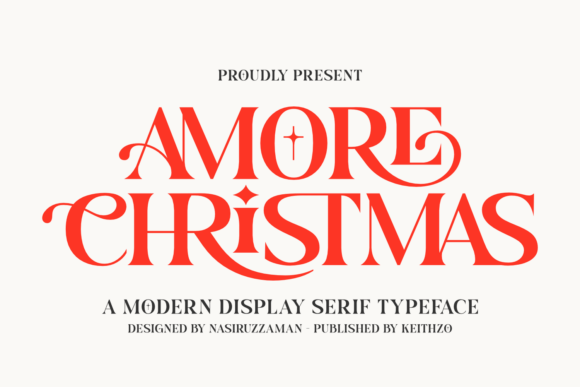
Immerse Yourself in the Festive Spirit with Amore Christmas Font
The holiday season is upon us, and with it comes the desire to create festive and captivating designs that evoke the warmth and cheer of Christmas. Introducing Amore Christmas, a bold and elegant display serif font that embodies the essence of the holiday season. With its stunning ligatures, flowing arcs, and built-in Yuletide decorations, Amore Christmas is the perfect choice for adding a touch of holiday magic to your designs.
The Essence of Holiday Cheer
Amore Christmas is more than just a font – it’s an experience. It’s a way to transport your audience to a world of festive joy, warmth, and celebration. The font’s bold and elegant design makes it perfect for creating high-impact headlines, vibrant seasonal promotions, and Christmas-themed menus that resonate with your audience. Whether you’re designing a holiday greeting card, a festive advertisement, or a seasonal website, Amore Christmas is the perfect choice.
Audacious and Elegant Design
Amore Christmas boasts an audacious and elegant design that is sure to turn heads. Its display serif font style gives it a sophisticated and luxurious feel, perfect for creating high-end holiday designs. The font’s bold lines and flowing arcs add a touch of drama and flair, making it perfect for creating eye-catching headlines and titles.
Awe-Inspiring Ligatures and Decorations
One of the standout features of Amore Christmas is its awe-inspiring ligatures and built-in Yuletide decorations. The font comes with a range of ligatures and ornaments that add a touch of festive flair to your designs. From snowflakes to holly leaves, the font’s decorations are intricately designed to evoke the spirit of the holiday season.
Perfect for Holiday Designs
Amore Christmas is the perfect choice for a wide range of holiday designs, including:
- Holiday greeting cards and invitations
- Festive advertisements and promotions
- Christmas-themed menus and restaurant designs
- Seasonal website designs and headers
- Holiday social media graphics and posts
Unleash the Feel of Treasured Holiday Memories
Amore Christmas is more than just a font – it’s a way to evoke the feel of treasured holiday memories. The font’s warm and inviting design is sure to transport your audience to a world of festive joy and celebration. Whether you’re designing a holiday advertisement or a seasonal website, Amore Christmas is the perfect choice for creating a sense of warmth and nostalgia.
Let it Echo the Celebration of the Season
Amore Christmas is the perfect way to echo the celebration of the holiday season. The font’s bold and elegant design makes it perfect for creating high-impact headlines and titles that resonate with your audience. With its awe-inspiring ligatures and built-in Yuletide decorations, Amore Christmas is sure to add a touch of festive magic to your designs.
Key Features of Amore Christmas
- Bold and elegant display serif font
- Awe-inspiring ligatures and built-in Yuletide decorations
- Perfect for creating high-impact headlines and titles
- Suitable for a wide range of holiday designs
- Evokes the feel of treasured holiday memories and warmth
In conclusion, Amore Christmas is the perfect font for adding a touch of holiday magic to your designs. Its bold and elegant design, awe-inspiring ligatures, and built-in Yuletide decorations make it perfect for creating high-impact headlines, vibrant seasonal promotions, and Christmas-themed menus that resonate with your audience. Whether you’re designing a holiday greeting card or a seasonal website, Amore Christmas is the perfect choice for evoking the feel of treasured holiday memories and warmth.
Get Ready to Make Your Holiday Designs Shimmer with Life
With Amore Christmas, you can create holiday designs that shimmer with life. The font’s bold and elegant design, combined with its awe-inspiring ligatures and built-in Yuletide decorations, makes it perfect for adding a touch of festive flair to your designs. So why wait? Get ready to make your holiday designs shine with Amore Christmas.